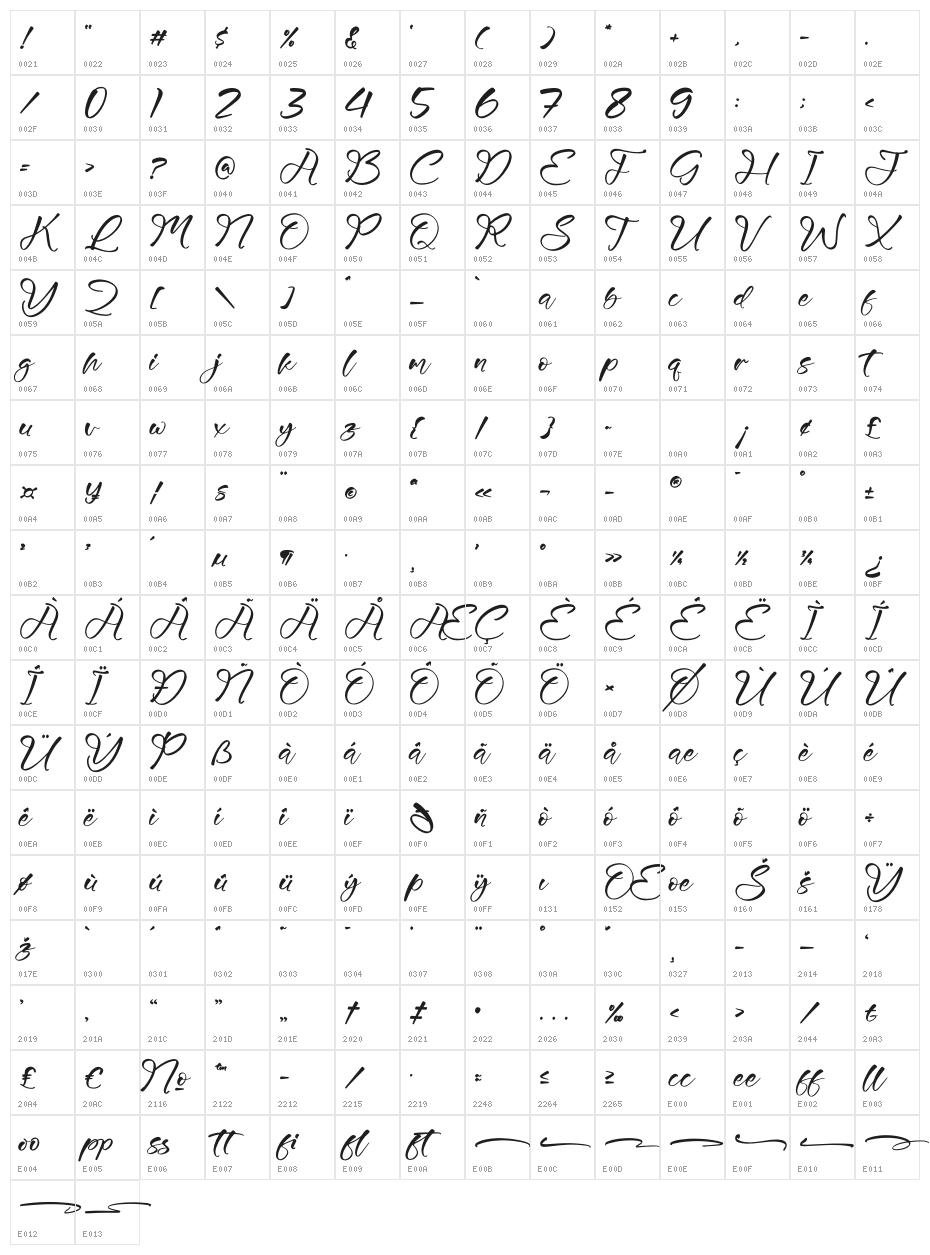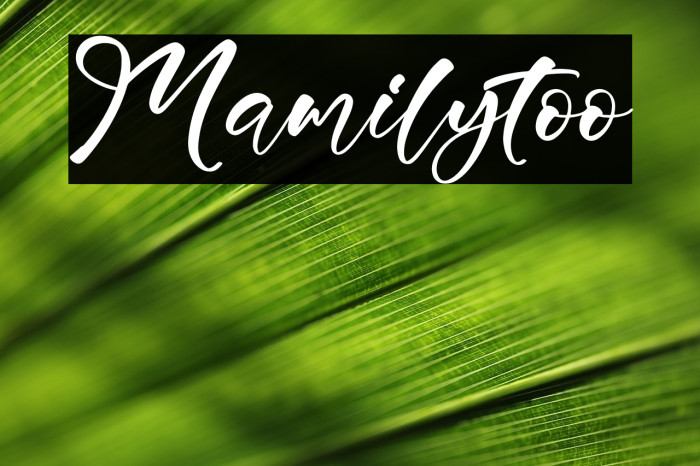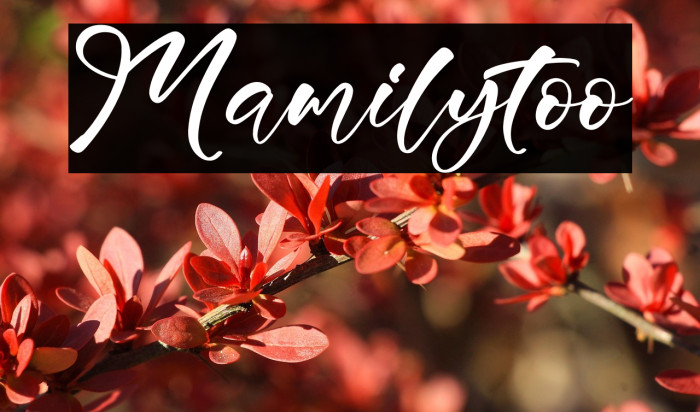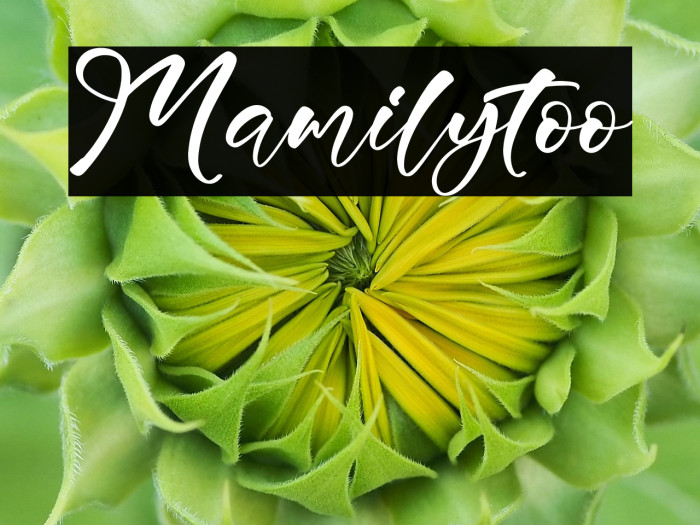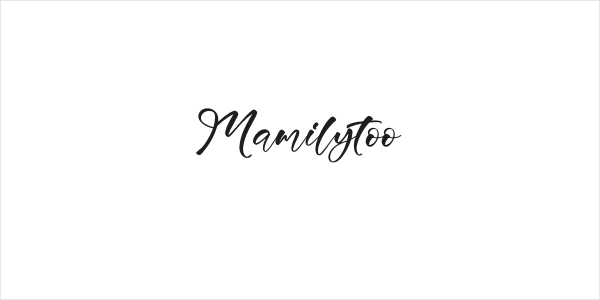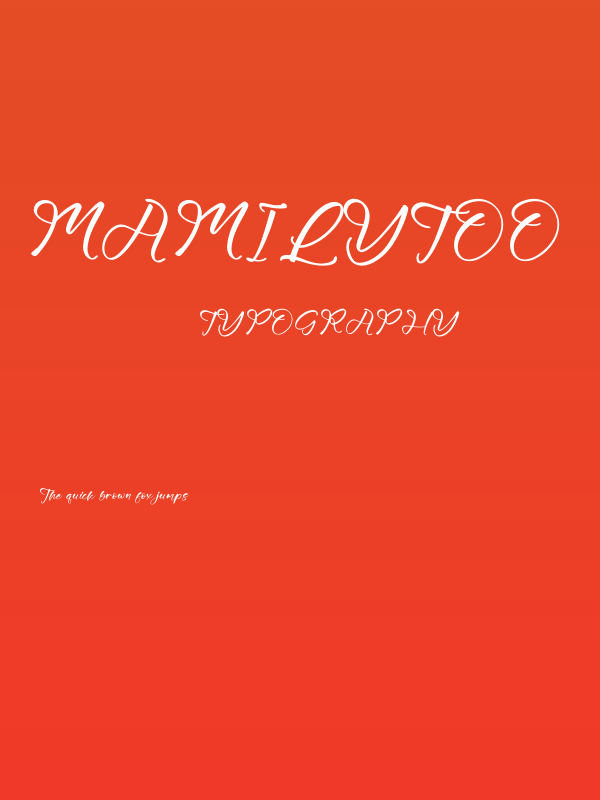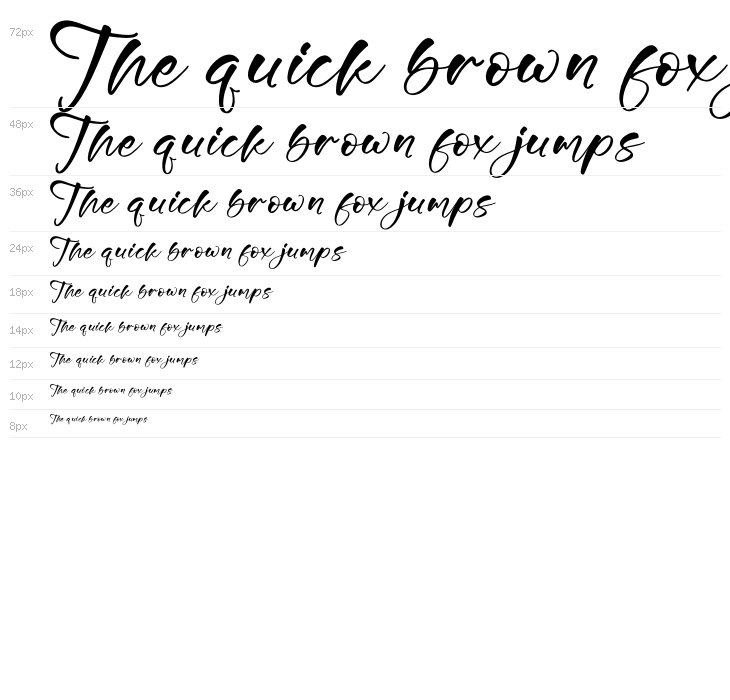
Mamilytoo Font
Mamilytoo Description
A flowing, cursive script font with a handwritten style, featuring smooth, connected strokes and a playful, elegant appearance.
| Proposed Projects | Invitations, greeting cards, personal branding. |